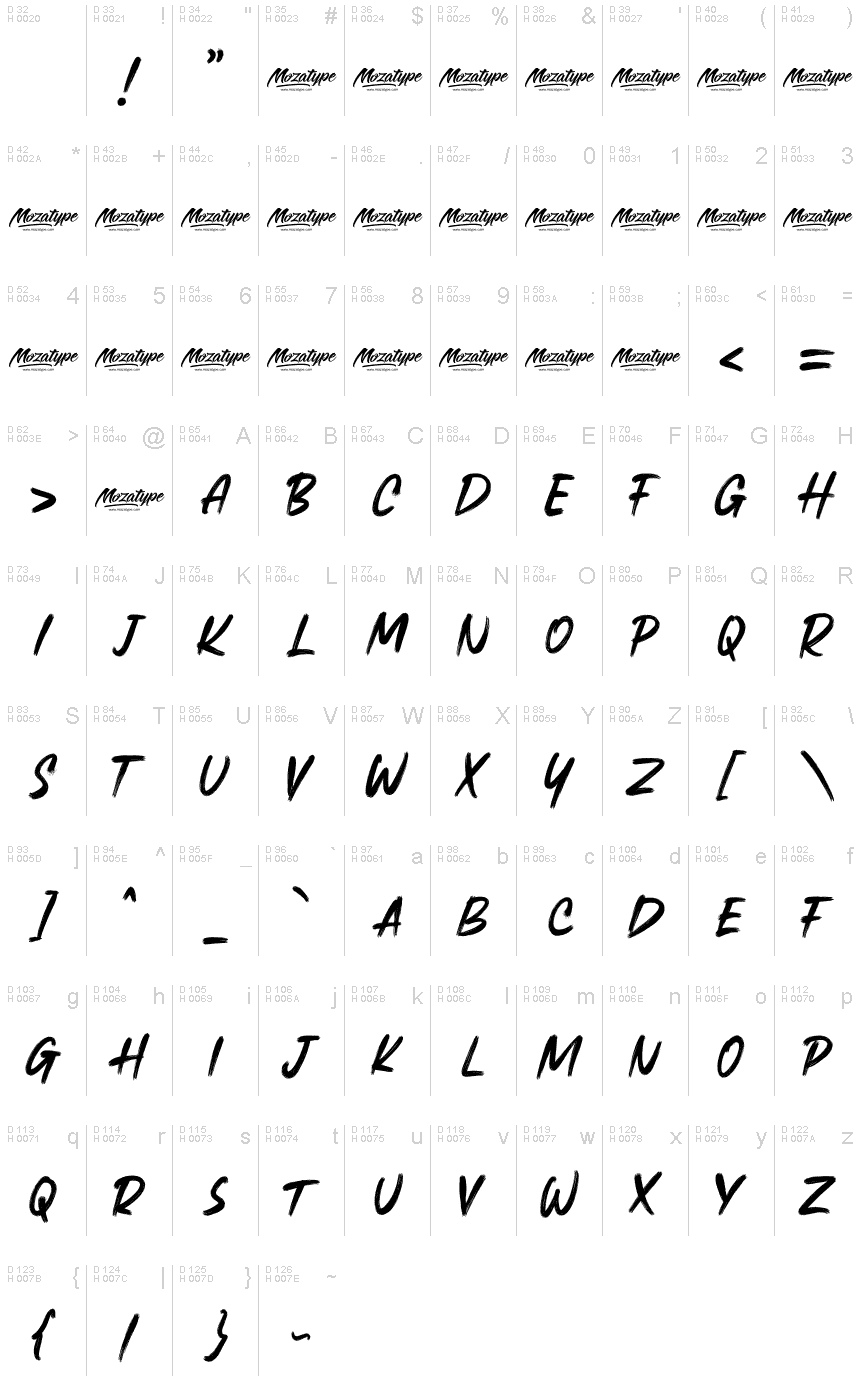
BLACK MONDAY
BLACK MONDAY, designed by Mozatype, is an extraordinary brush font that exudes creativity and boldness. With its captivating brush strokes and all caps design, this font is perfect for projects that demand attention and expressiveness. Capture the essence of urban street art or add a touch of edginess to your graphic designs. BLACK MONDAY is an ideal choice for branding, packaging, logo design, album covers, social media graphics, and any project that requires a unique and powerful typeface. Embrace the versatility of this font and make a lasting impact on your audience.